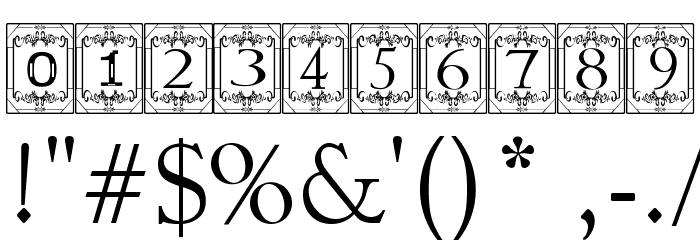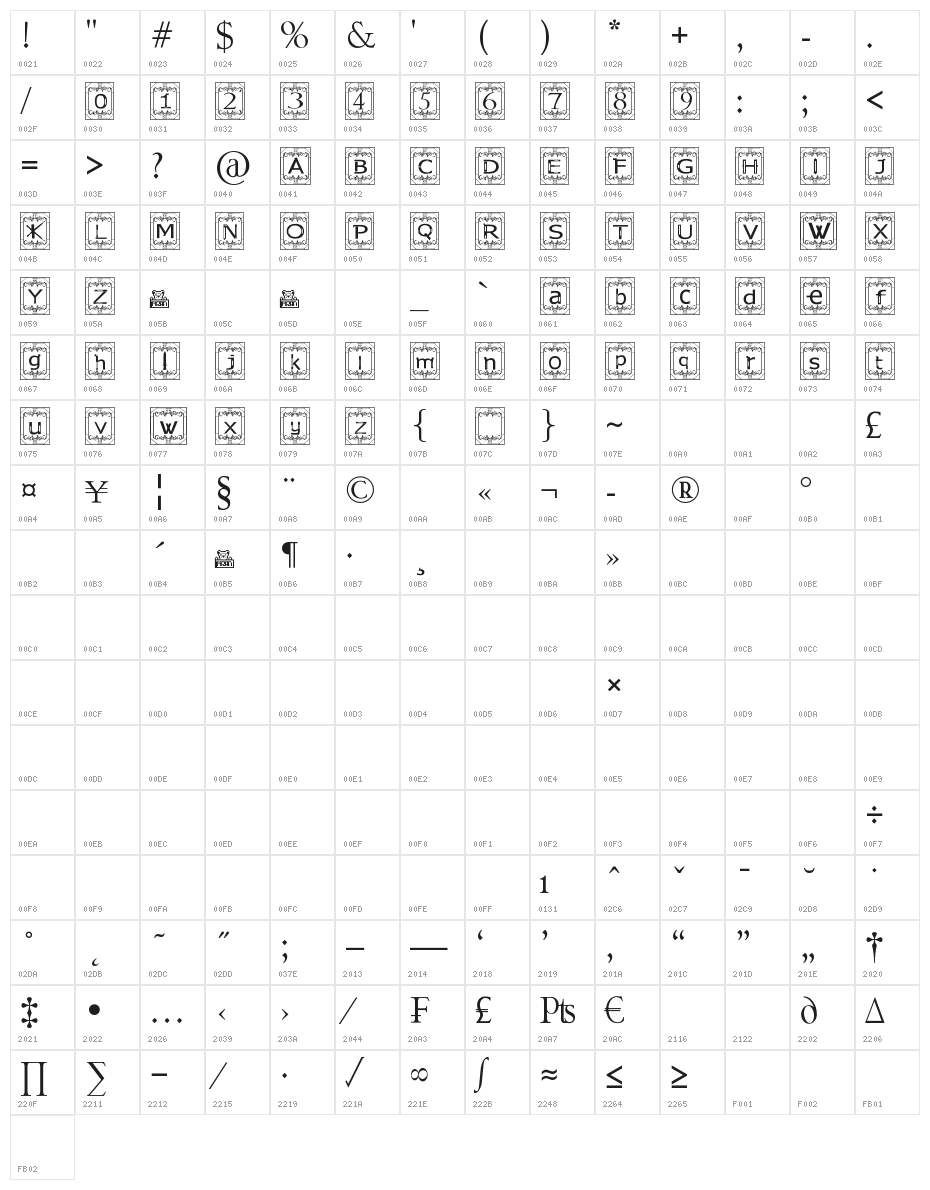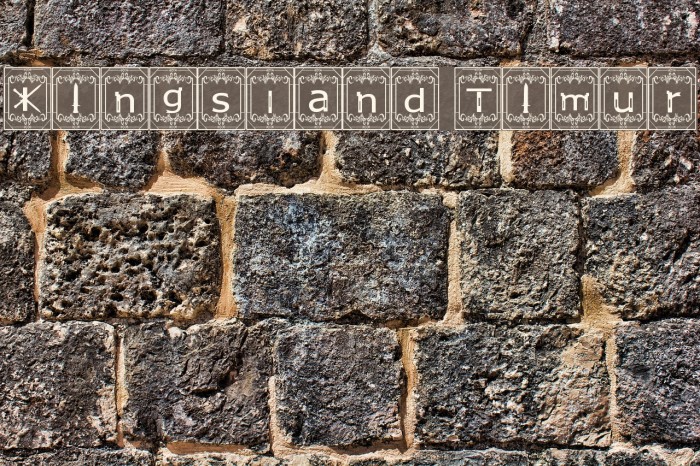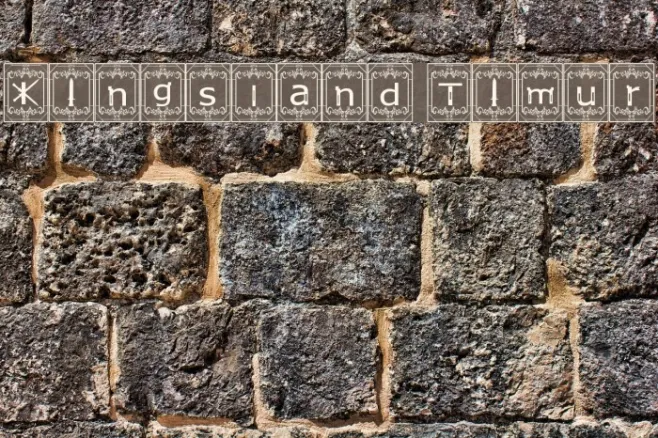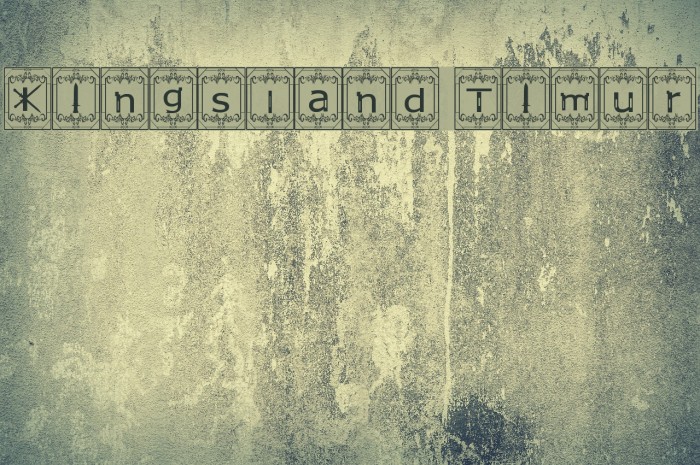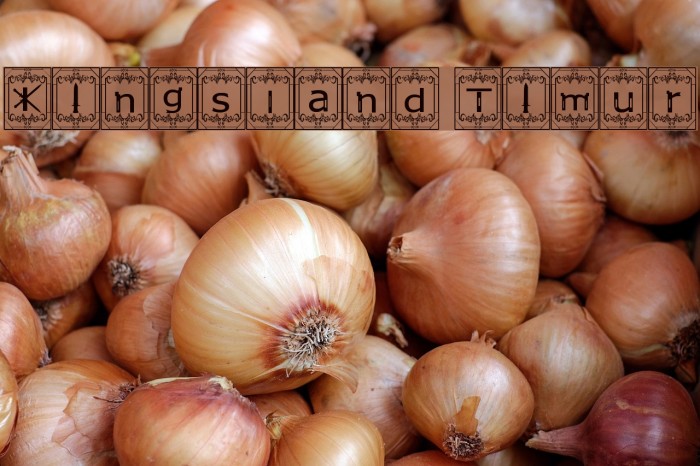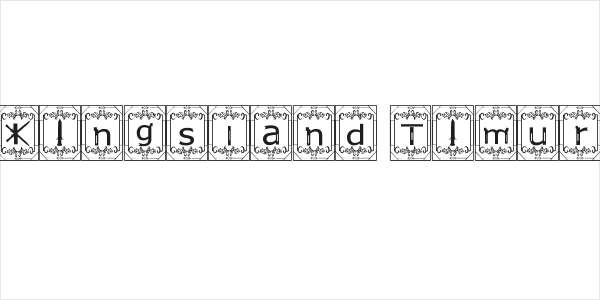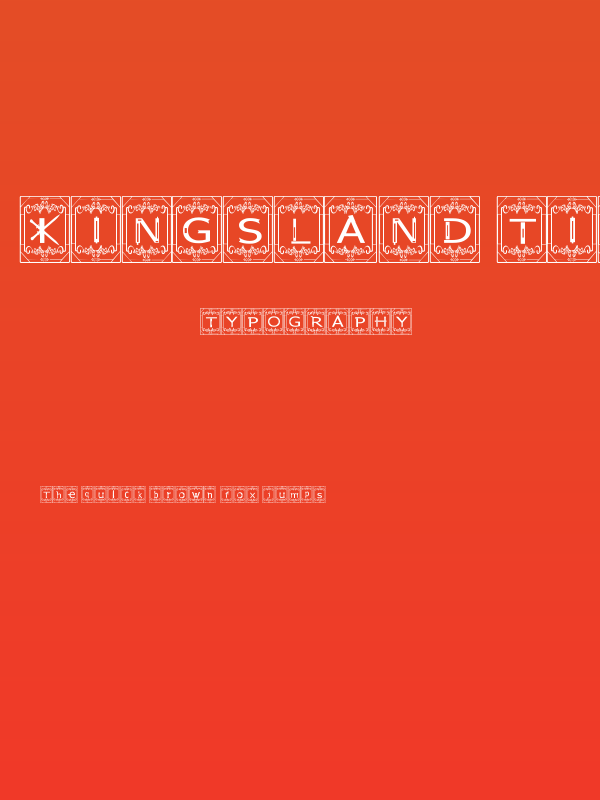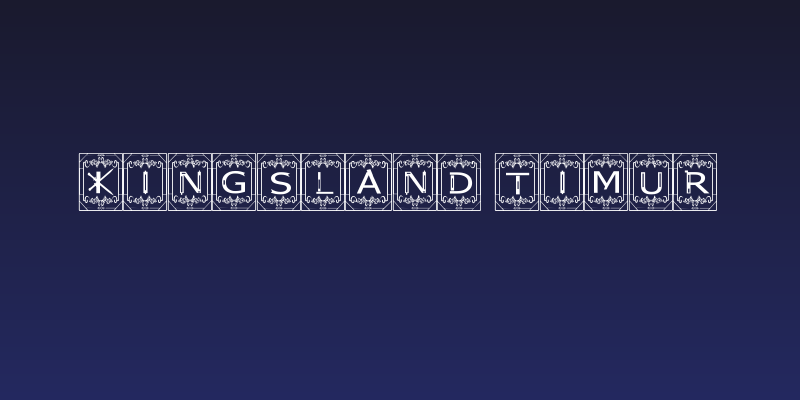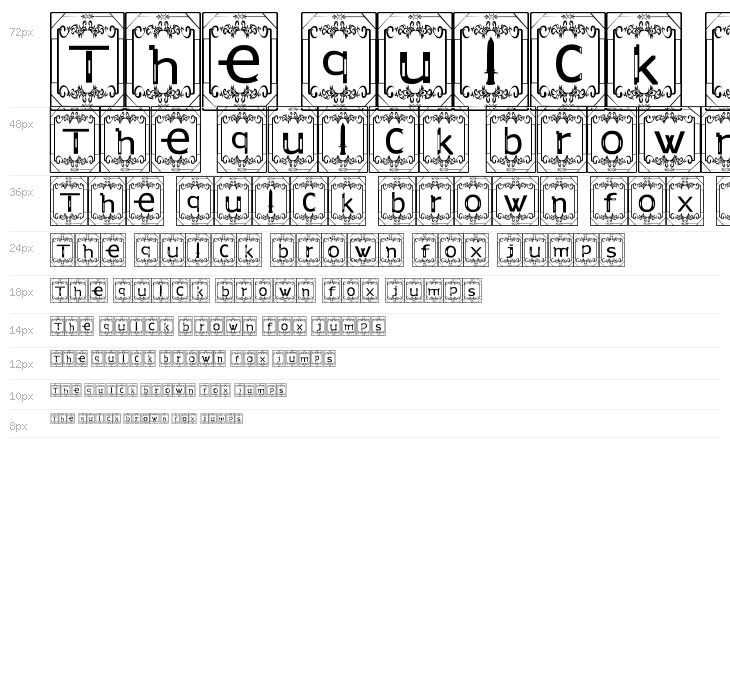
Kingsland Timur Font
Kingsland Timur Description
This font features a unique decorative style with ornate borders surrounding each character, giving it an elegant and vintage appearance. The letters are bold and clear, set within intricate frames that add a touch of sophistication and artistry. The uppercase and lowercase letters maintain a consistent design, while the numerals and special characters are equally embellished, ensuring a cohesive look across all elements. The overall aesthetic is reminiscent of classic Victorian or Art Nouveau designs, making it ideal for projects that require a touch of historical charm.
| Proposed Projects | Ideal for wedding invitations, vintage-themed posters, book covers, and branding that requires a classic touch. |